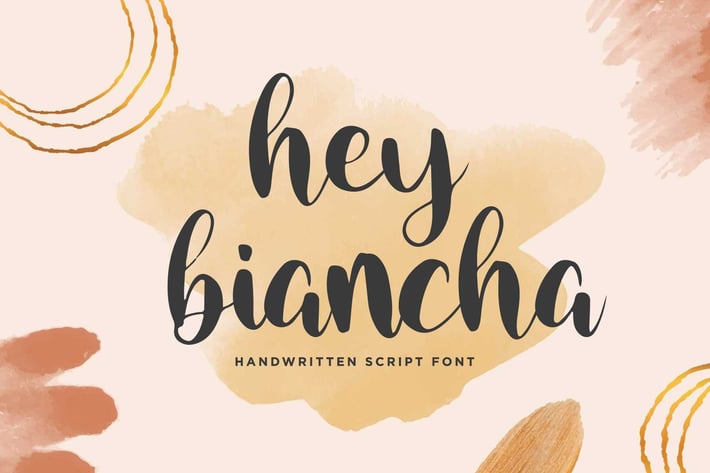
Hey Biancha - Instagram Font
Hey Biancha is a Handwritten Script font!
This font is perfect for quotes, tshirt designs, websites, branding,
children’s designs, blogs, logos, invitations and more!